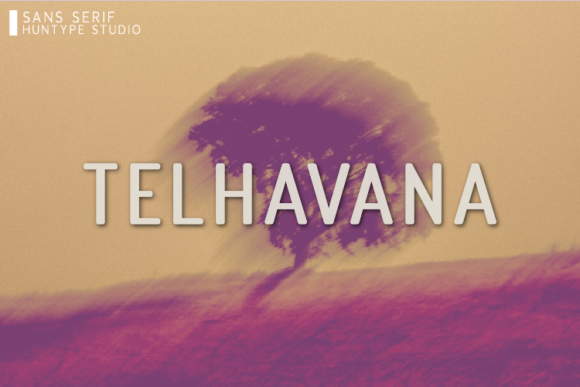
Dive into the world of typography with Telhavana, a captivating sans serif font family specifically tailored to elevate the aesthetics of your magazine designs. Created by the talented Huntype, Telhavana offers a minimalist yet striking visual appeal that will leave a lasting impression on your readers.
With its clean lines, open letterforms, and subtle curves, Telhavana exudes a sense of sophistication and clarity that will make your magazine content shine. Its high legibility and readability ensure that your message is conveyed effectively, allowing your audience to focus on the substance of your articles and stories.
Imagine the possibilities as you craft captivating headlines that leap off the page, drawing readers into your captivating narratives. Design elegant body text that flows seamlessly, inviting readers to immerse themselves in your compelling articles. Create eye-catching pull quotes that demand attention, highlighting key insights and captivating anecdotes.
Telhavana is more than just a font; it's a versatile design tool that empowers you to transform your magazine into a visual masterpiece. Its remarkable adaptability allows it to seamlessly blend with a wide range of design aesthetics, from modern and minimalist to classic and timeless. Whether you're designing a fashion magazine, a travelogue, a lifestyle publication, or anything in between, Telhavana will effortlessly elevate your creative vision.
Don't settle for ordinary fonts that blend into the background. Embrace the power of Telhavana and watch as your magazine captivates and engages your audience like never before. Let your words dance across the pages, imbued with the elegance and charm that only Telhavana can provide.